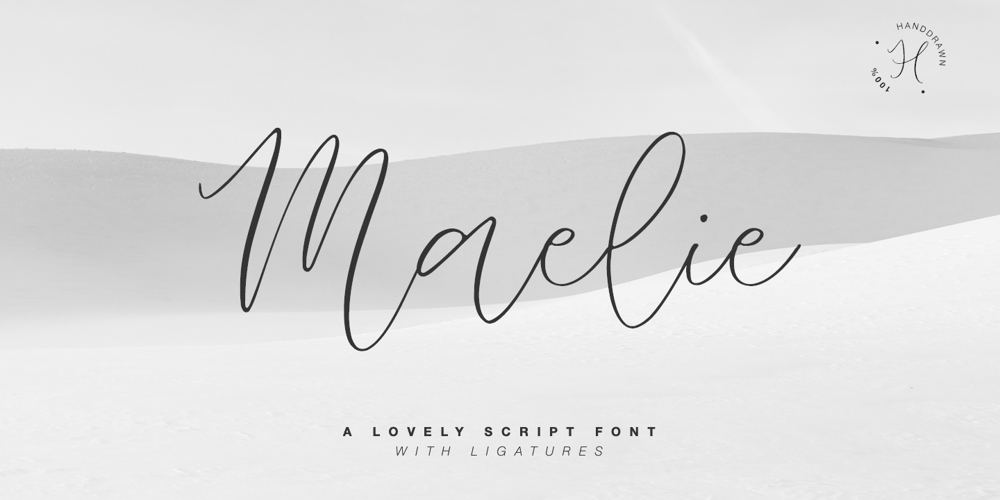
Maelie Font Family was designed by Dmitrii Chirkov and published by Supfonts. Maelie contains 1 styles and family package options. Hello dears! This font is a new Calligraphic Script. Here is that: floating baseline, ligatures and multilingual support ๐ Maelie Script will look beautiful on holiday invitations, wedding invites and stationery, logos, and more. Test it out below to see how it could look for your next project! Includes: Uppercase and lowercase Numbers and punctuation Foreign language support Ligatures Check out my blog: https://www.instagram.com/zloillev pinterest.com/dmitriychirkov7